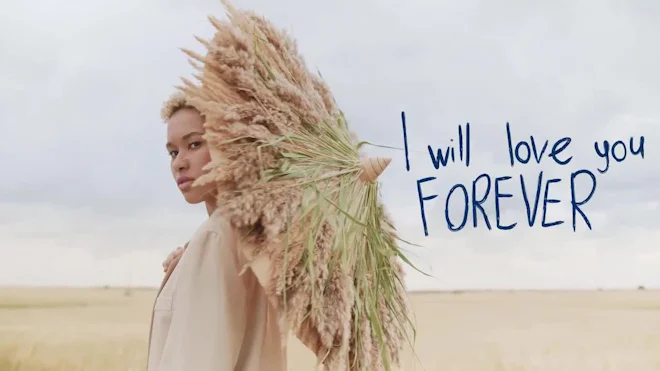
This stock motion graphics video pack includes 118 clips of handwritten pen titles, letters, numbers, symbols, and icons on a transparent alpha channel in a seamless loop.